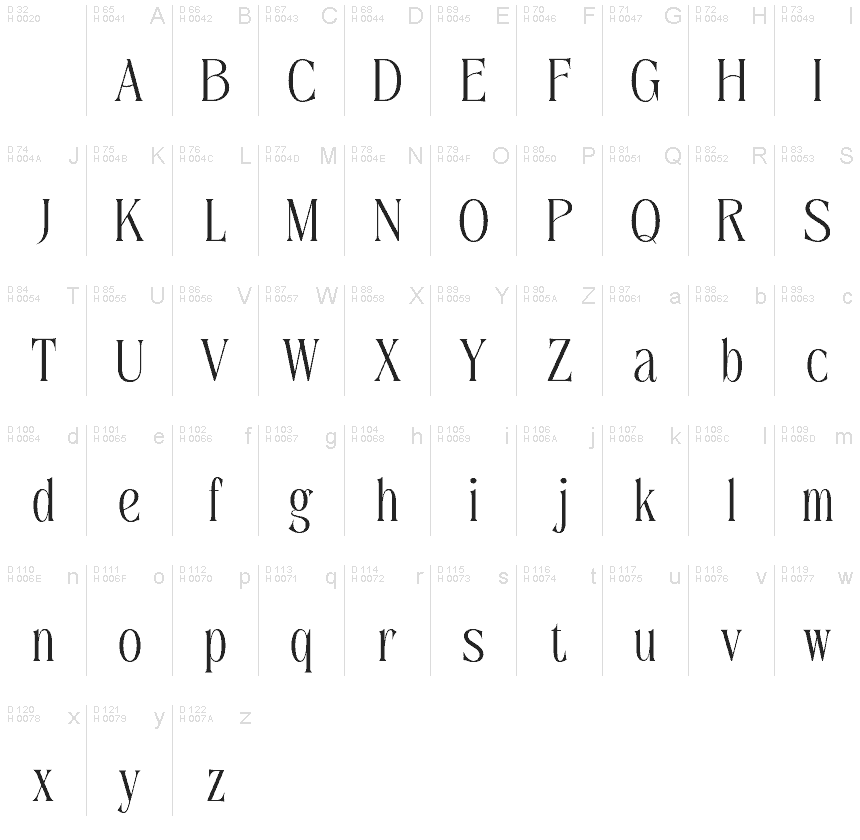
Revenika Demo Regular
Revenika font by Craft Supply Co is a modern condensed serif font that combines elegance and sophistication in its refined aesthetics. Each letter is crafted with classic influences, resulting in a font with timeless appearance, professional look and feel.
Use it in designing magazines, newspapers and books. It works well for branding projects, visual identity design, business cards and other printed collaterals. Stylish websites will also benefit from Revenika’s elegance and readability.